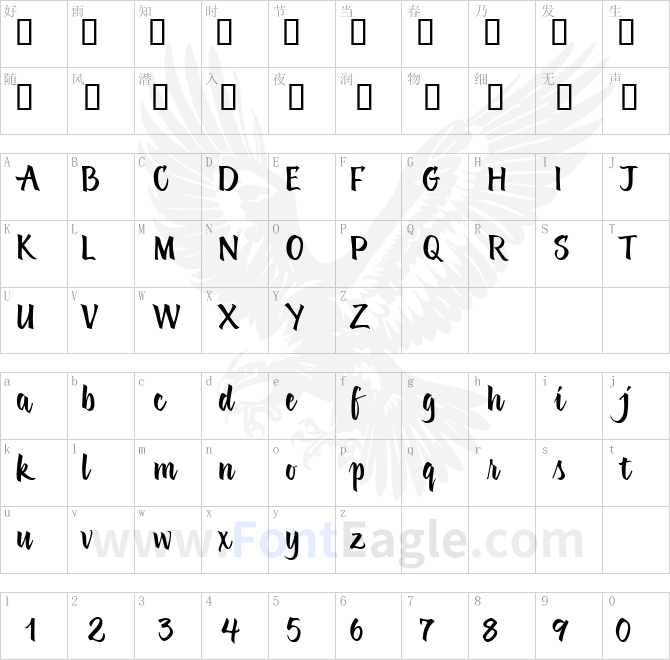
- Font name:GrafiaScriptUT
- Font Full Name:GrafiaScriptUT
GrafiaScriptUT is a great font, widely used in graphic design, single-page menu design, poster design and other fields, and is deeply loved by designers.GrafiaScriptUT download.